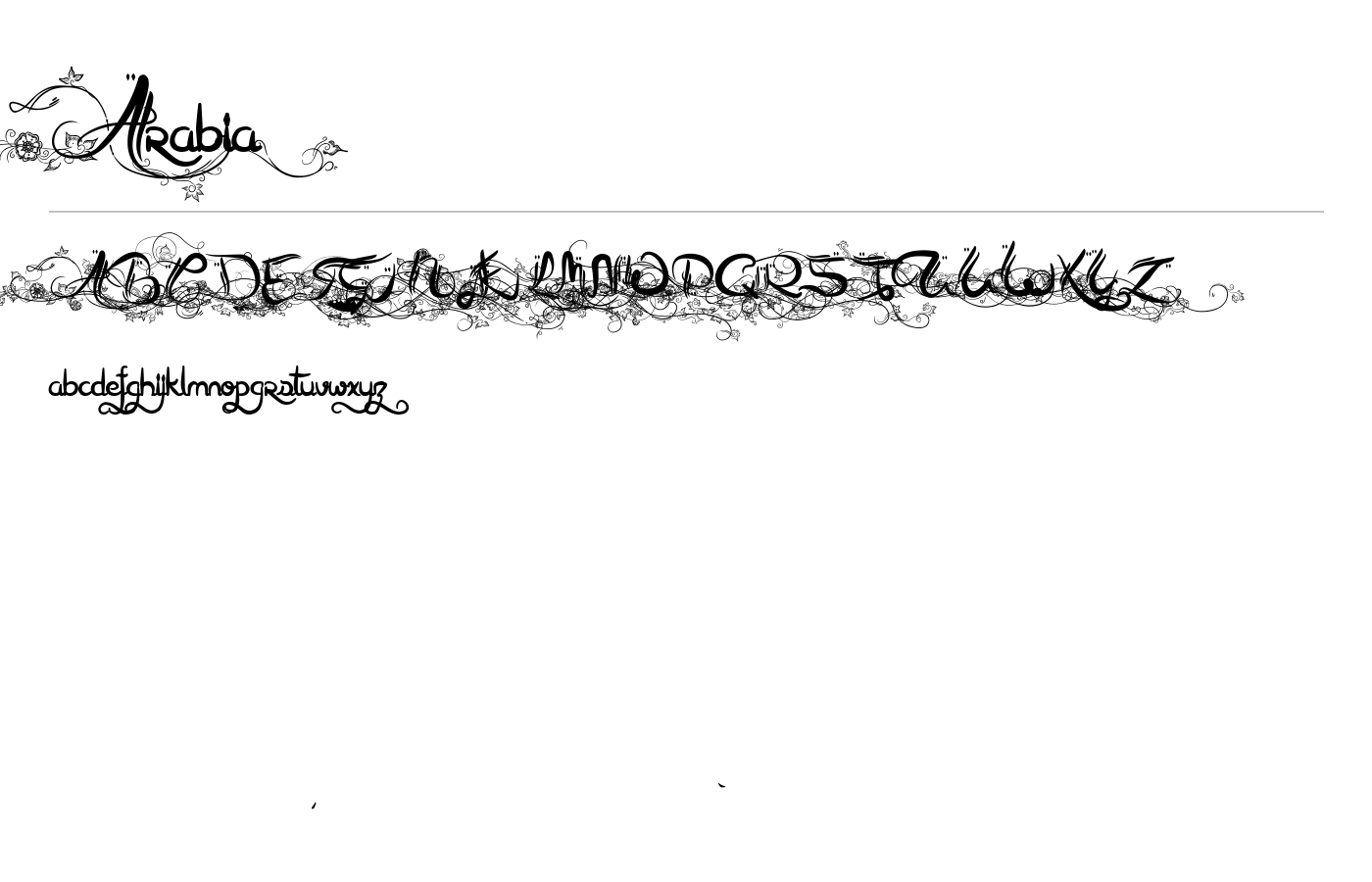
Arabia Font is an ornate, decorative script typeface with elaborate, floral-infused letterforms that create a delicate and artistic appearance. Its flowing, cursive style with intricate swirls makes it ideal for elegant invitations, branding, or projects seeking a whimsical, luxurious touch rather than traditional readability. This font works best in large display settings where its detailed beauty can truly stand out.
Arabia Font
About Arabia Font